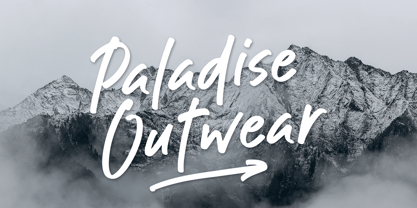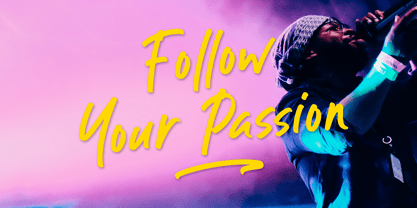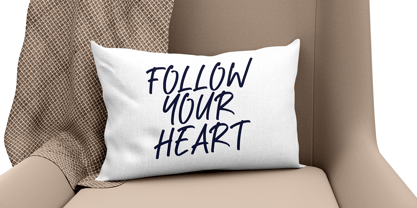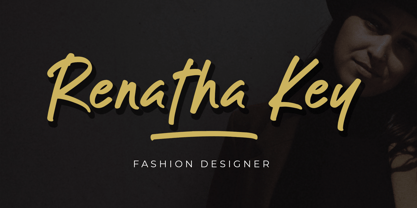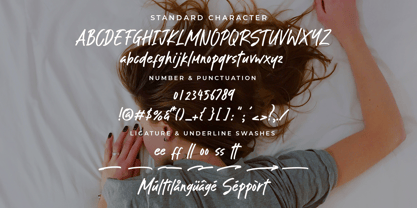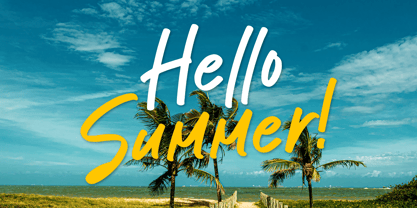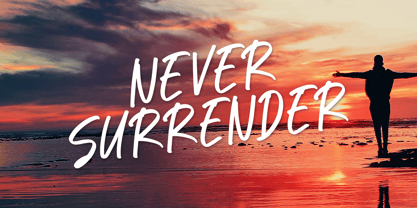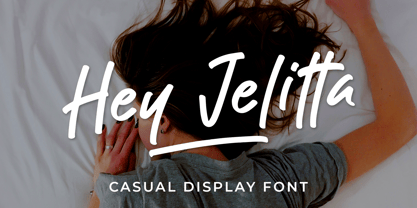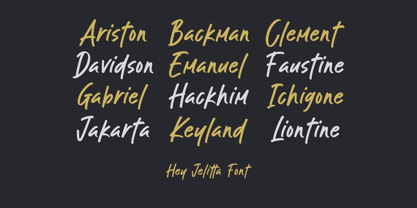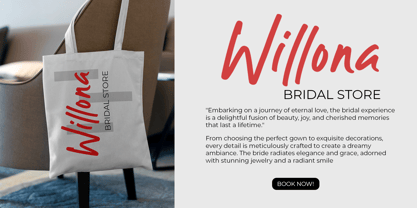
Hey Jelitta
by MJB Letters
The Hey Jelitta Font Family was designed by Muhammad Mujibulloh and published by MJB Letters. Hey Jelitta contains 1 styles.
Hey Jelitta font combines display and casual styles, the display style is bold and impactful, with meticulously crafted letters. It exudes confidence and grabs attention. the casual style has slightly slanted letterforms, resembling hand-drawn designs. It’s relaxed and playful, perfect for a friendly vibe. Hey Jelitta is versatile, suitable for logos, headlines, social media, and invitations. It offers a unique blend of styles for standout designs. Overall, Hey Jelitta font provides two distinct alternatives: bold and attention-grabbing or relaxed and playful. It’s a versatile choice.